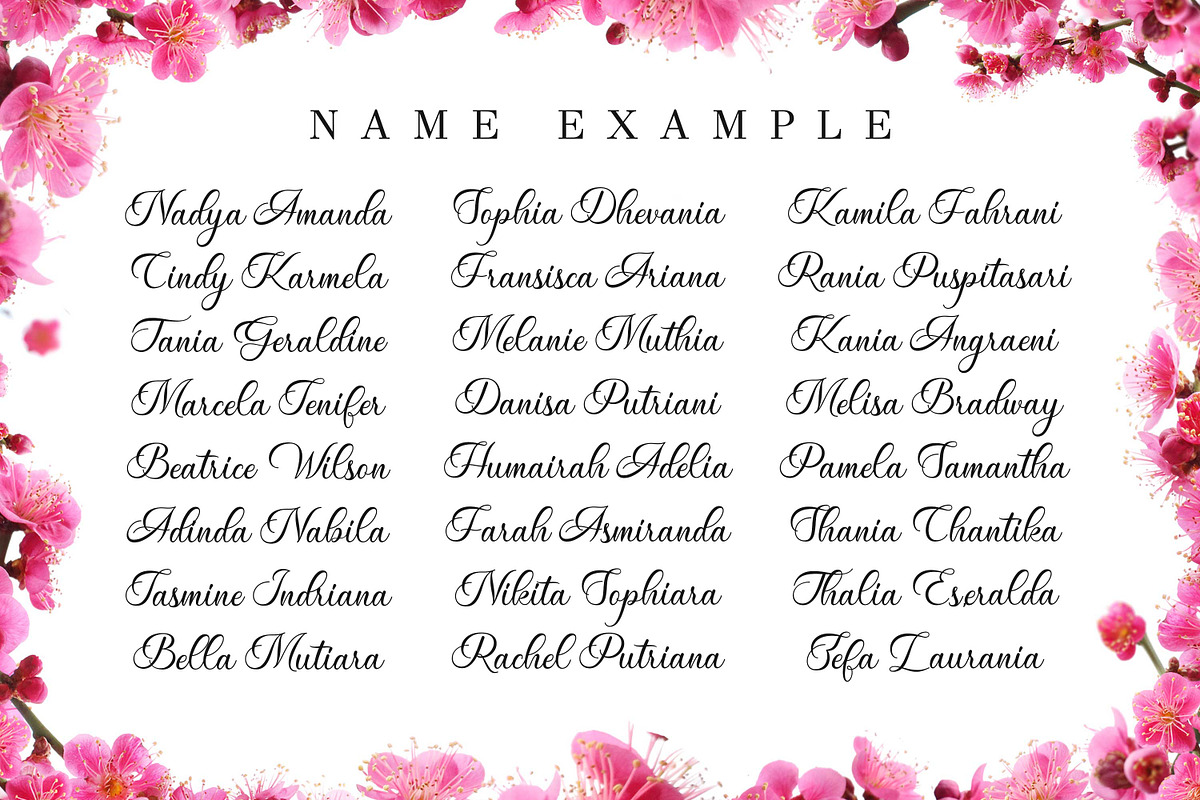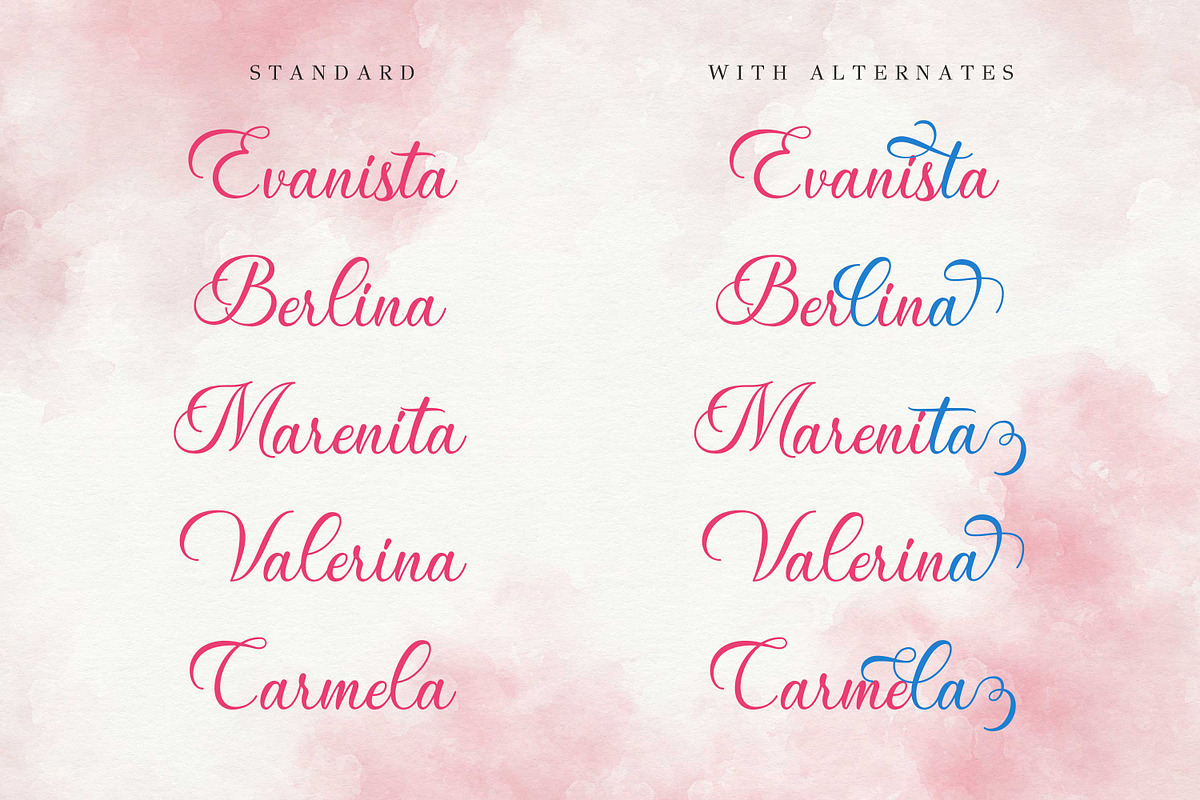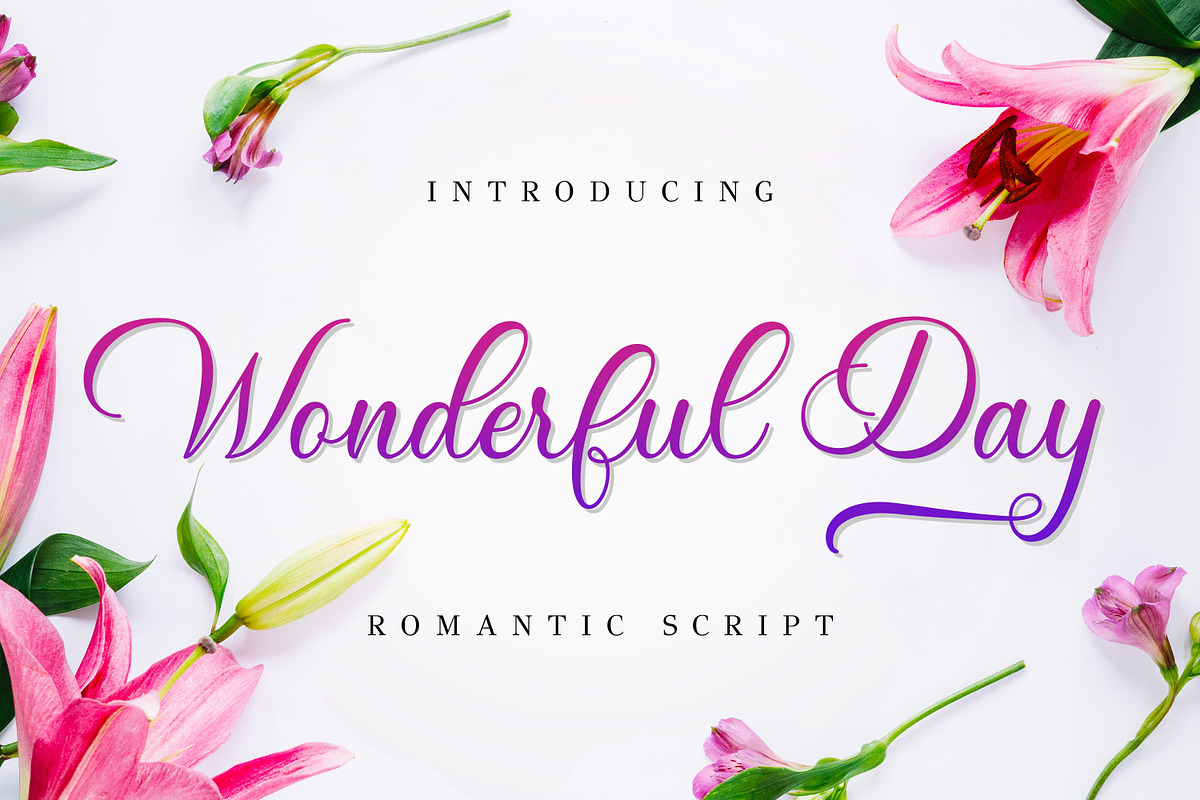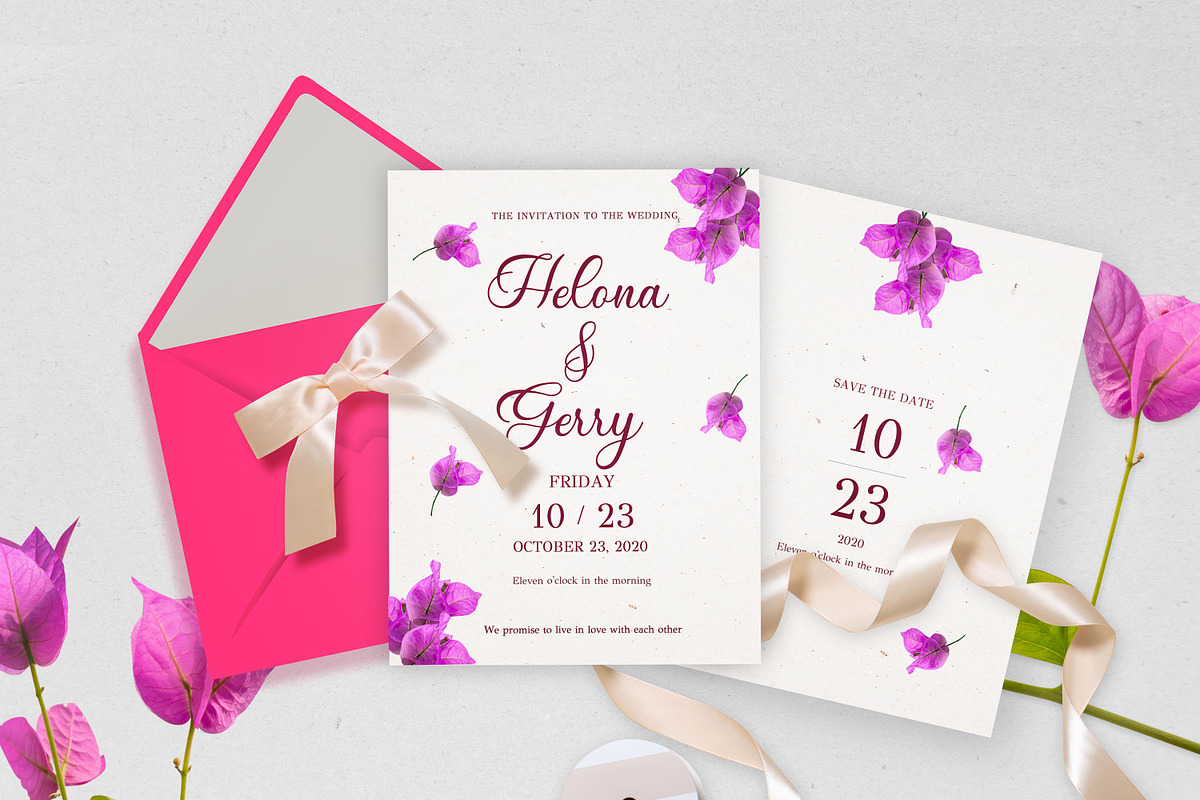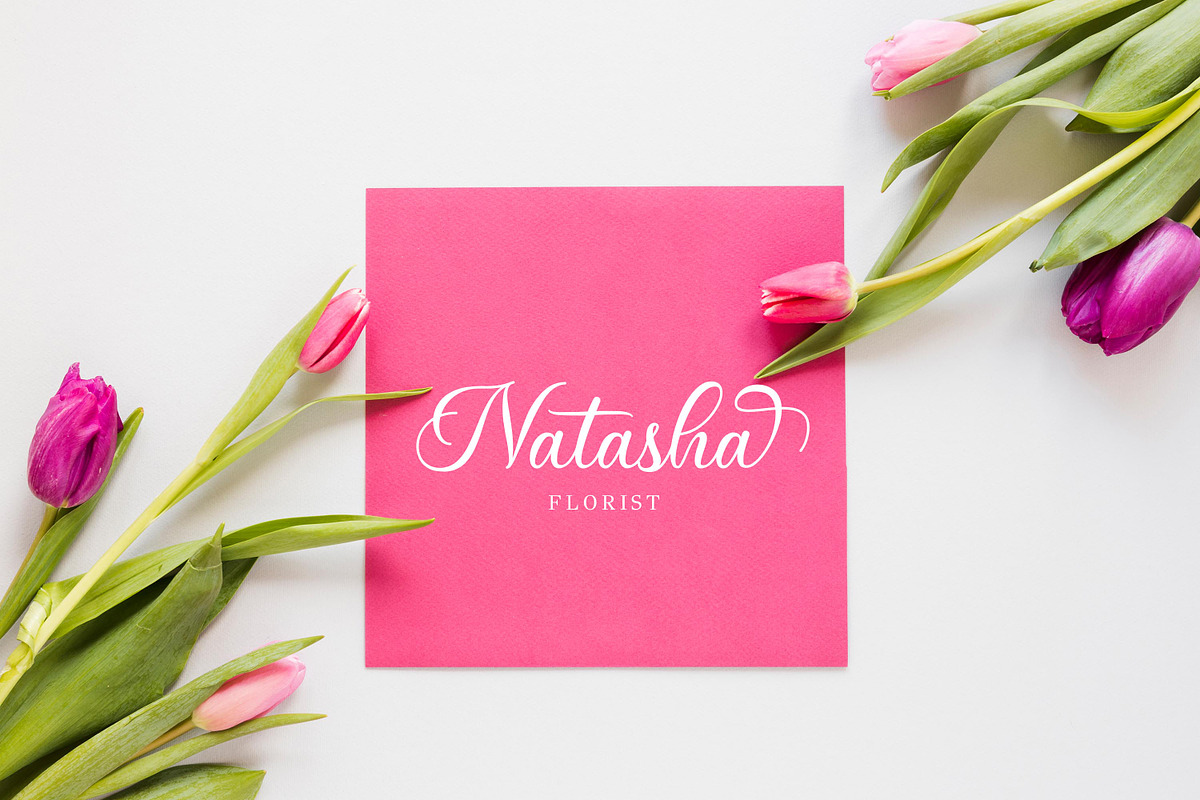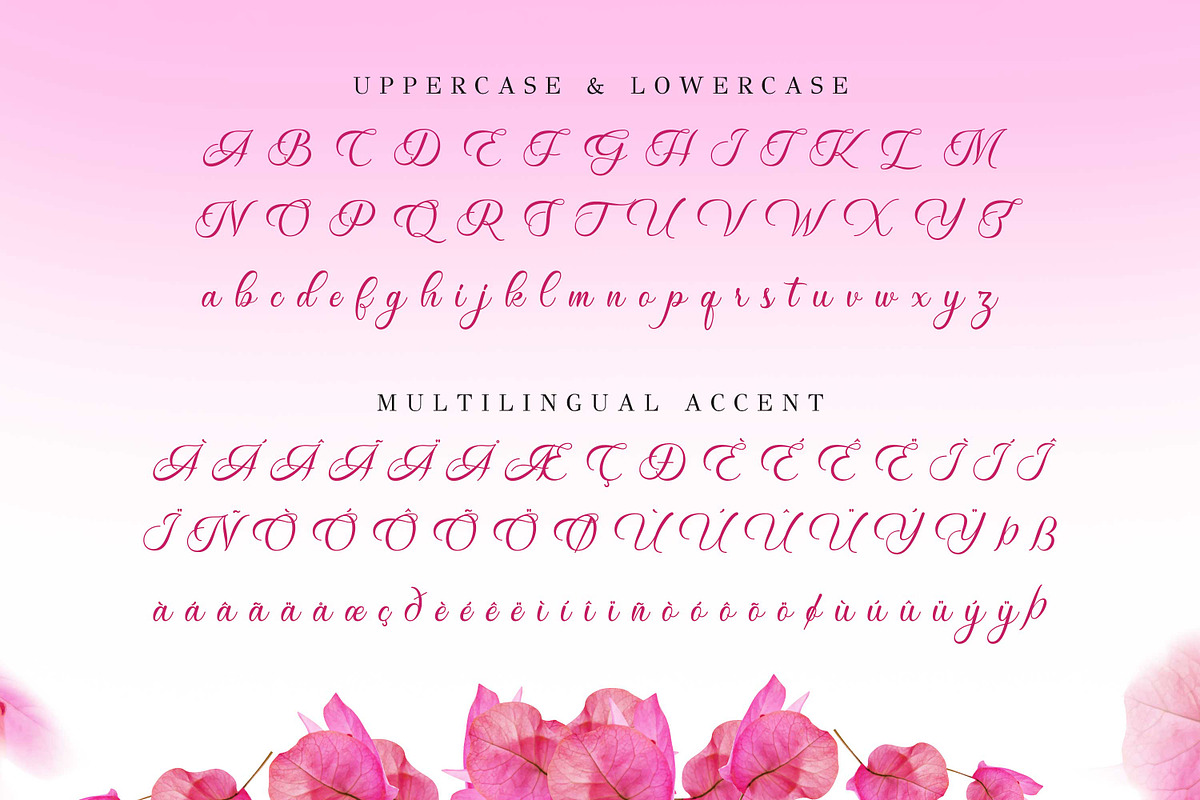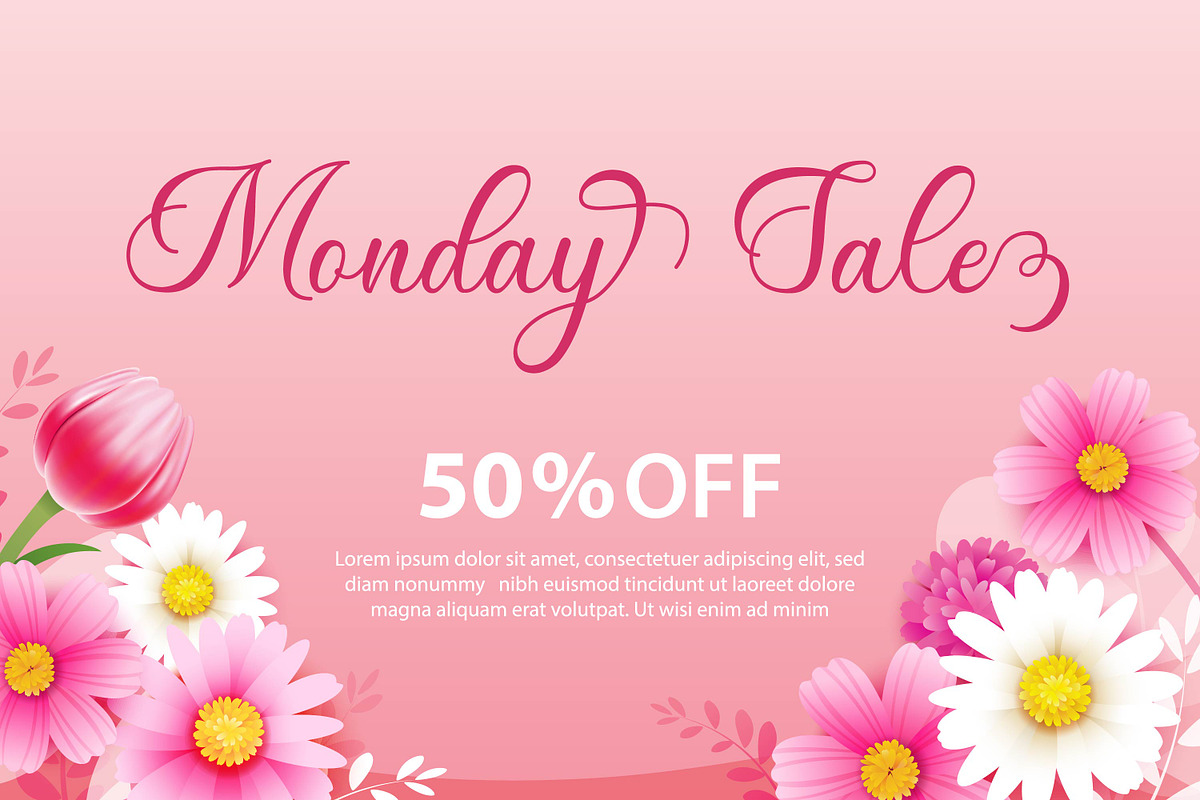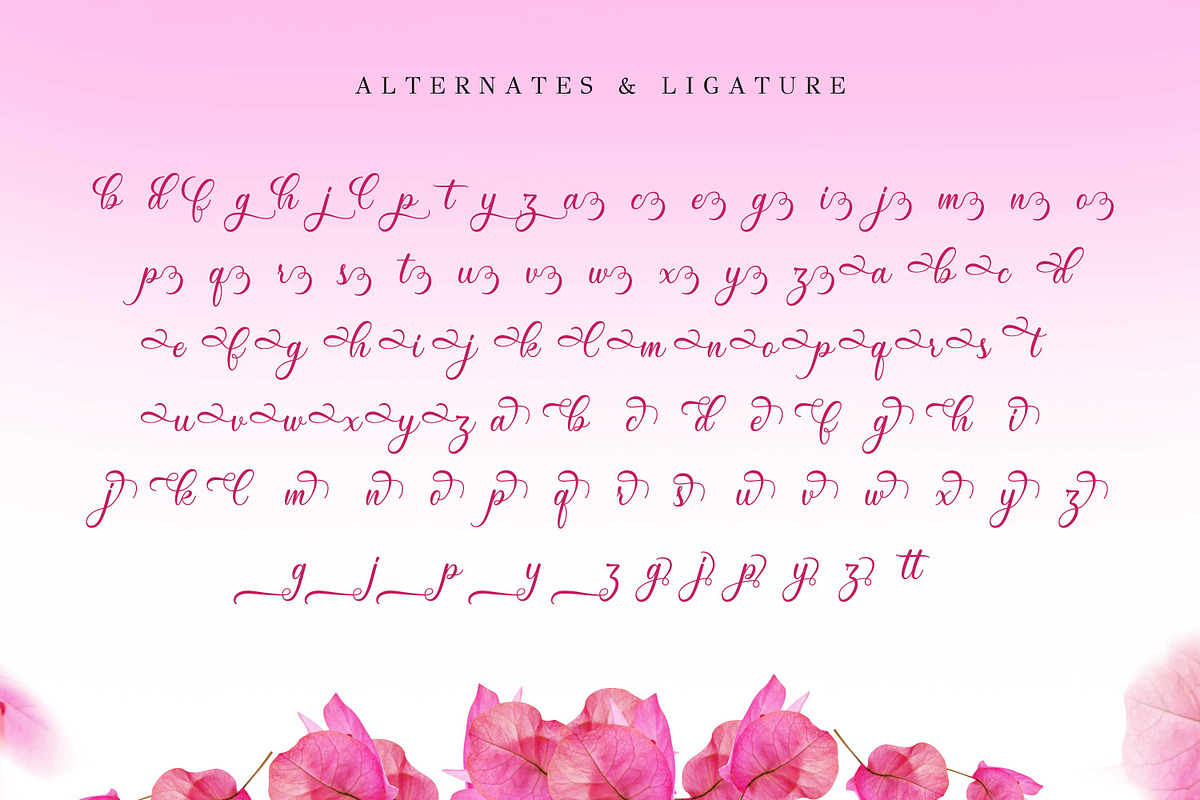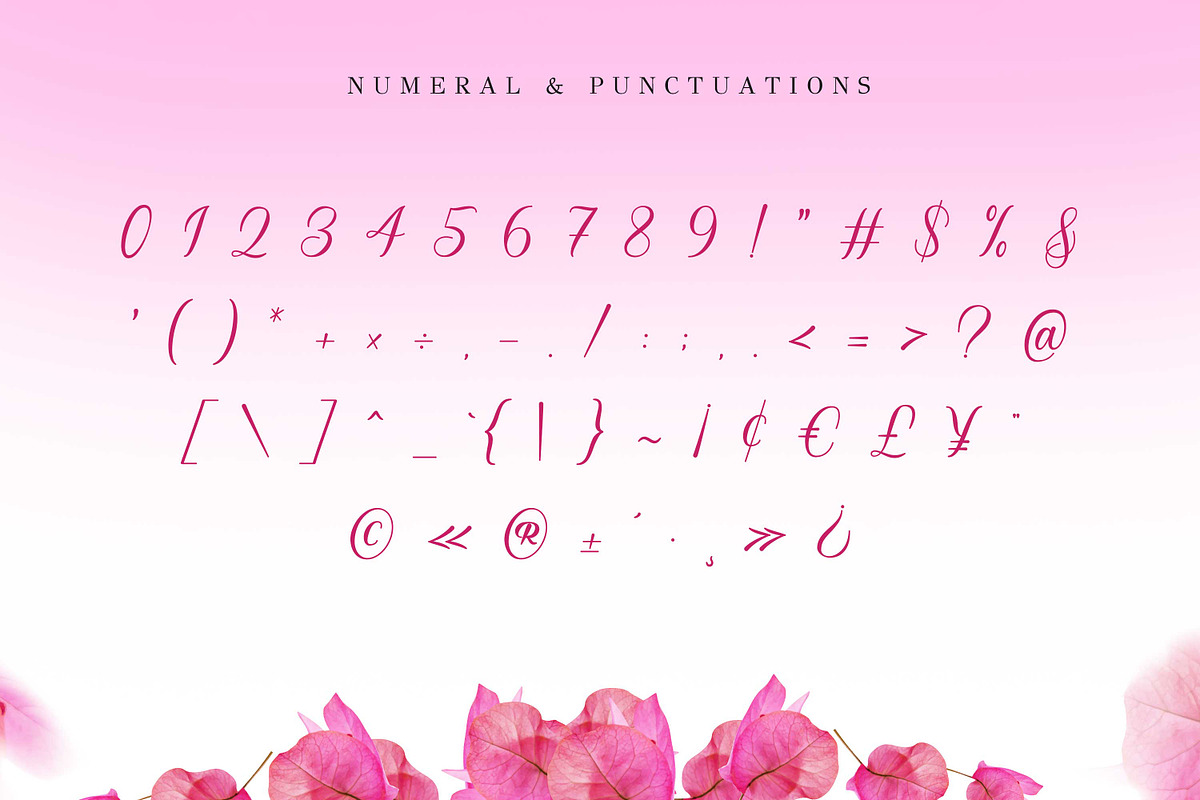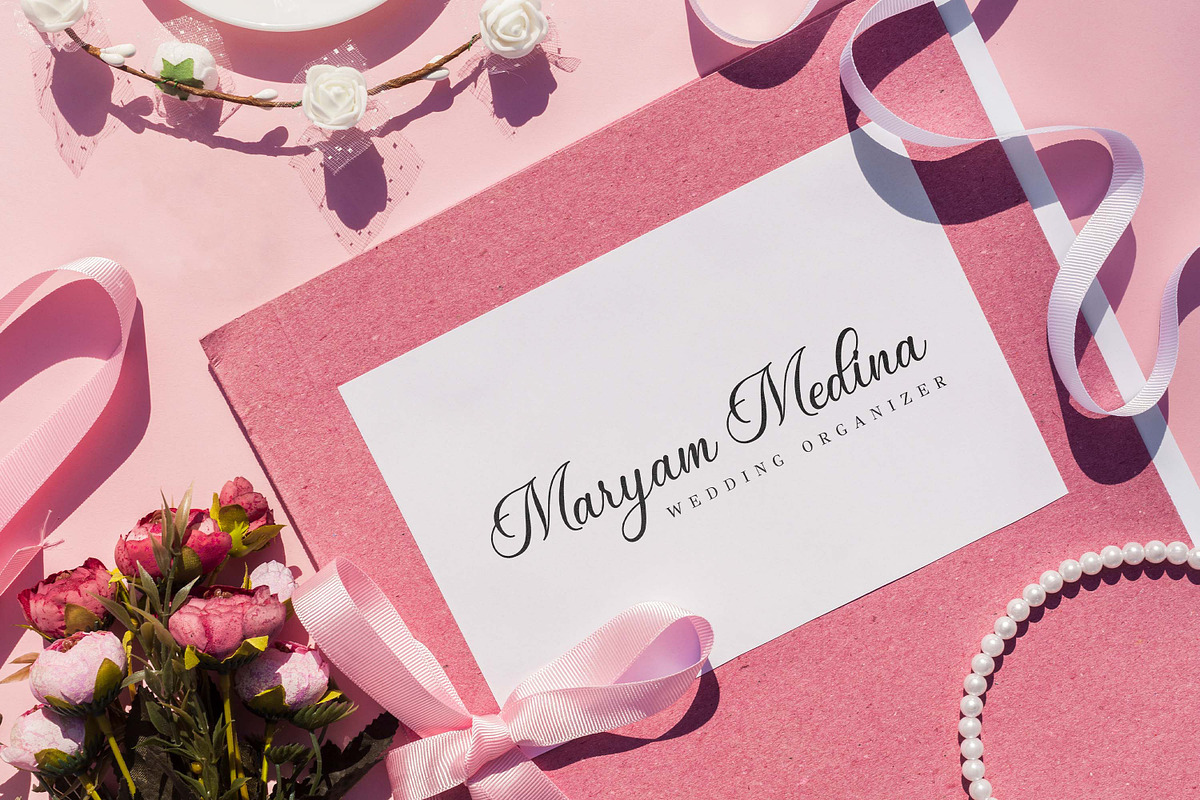
Wonderful Day - Romantic Script
Wonderful Day – is a Romantic Script font with a natural handwritten feel. It has sweety swash that are perfect for any creative design. This handmade font will make your design has a beautiful natural touch for each details. It is perfect for any design project as Invitation,logo, book cover, craft or any design purposes. This font is PUA encoded which means you can access all of the magical glyphs and swashes with ease! It also features a wealth of special features including alternate glyphs and ligatures. What’s Included :
- Alternates glyphs